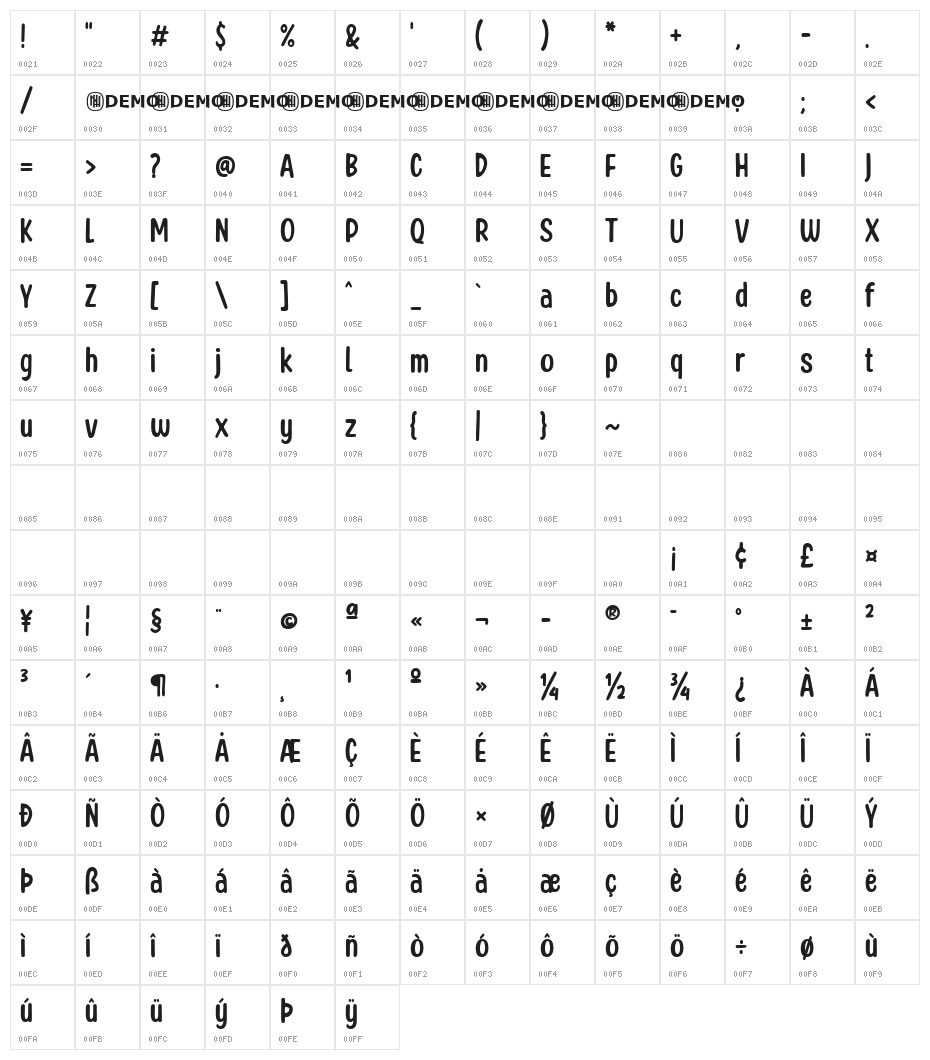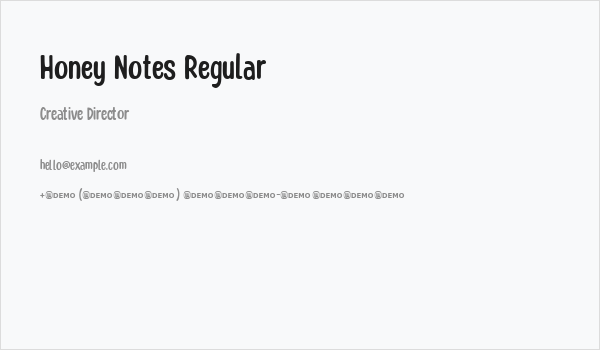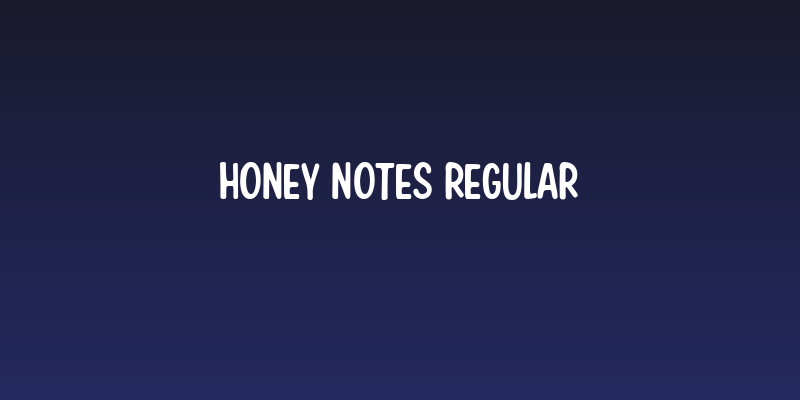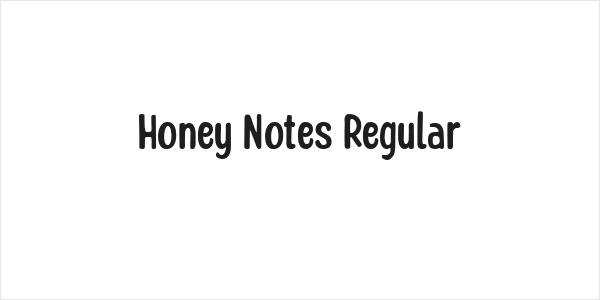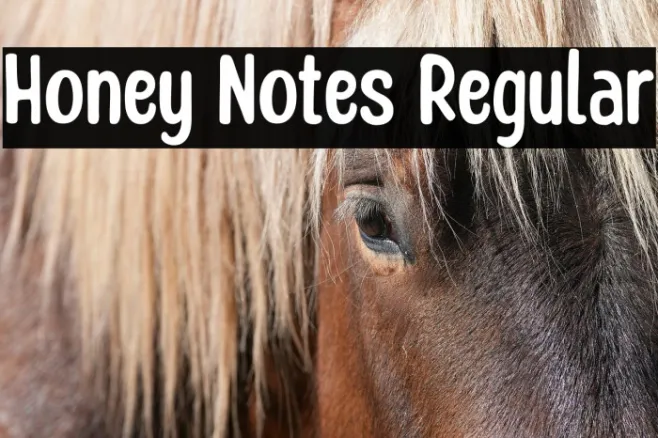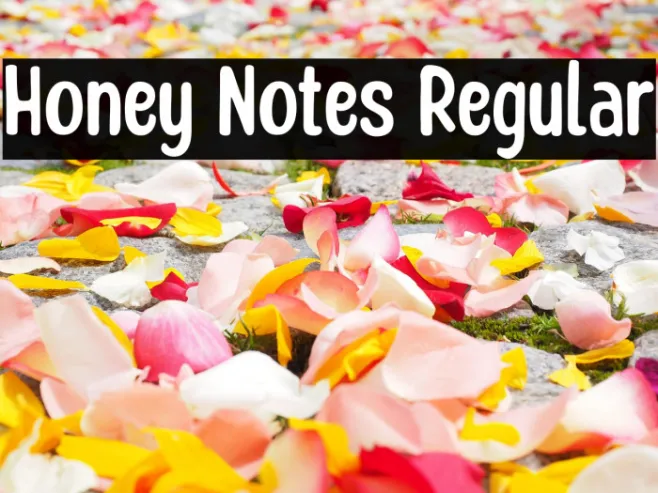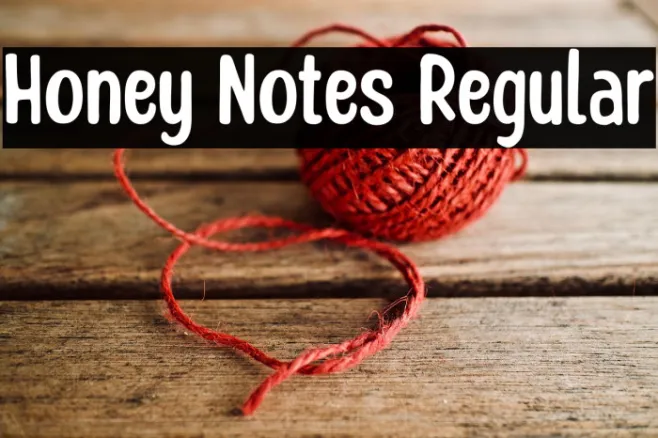
Honey Notes Regular Font
Honey Notes Regular Description
This playful and rounded font exudes a friendly and approachable vibe, making it ideal for projects that require a touch of whimsy. The characters are bold and slightly condensed, with smooth curves and a consistent stroke width that ensures readability. The font's design is reminiscent of hand-drawn lettering, giving it a personal and informal feel. It includes a full set of uppercase and lowercase letters, numerals, and a variety of special characters, making it versatile for different design needs. The uniformity in stroke thickness provides a balanced look, while the rounded edges soften the overall appearance, enhancing its charm and appeal.
| Use Case | Headlines, Logos, Casual Text |
| Proposed Projects | Ideal for children's books, greeting cards, playful branding, and casual invitations. |